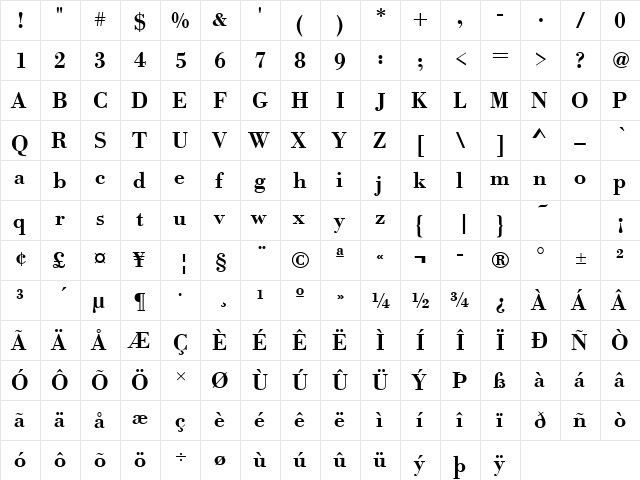
Bodoni Becker Med Regular
Design Context for Bodoni Becker Med Typeface
Bodoni Becker Med takes a measured approach to typography — its balanced proportions and neutral character make it a reliable workhorse for both digital and print work.
Pro Tip: Use Bodoni Becker Med in both headline and body roles to test its range before committing to a single application.